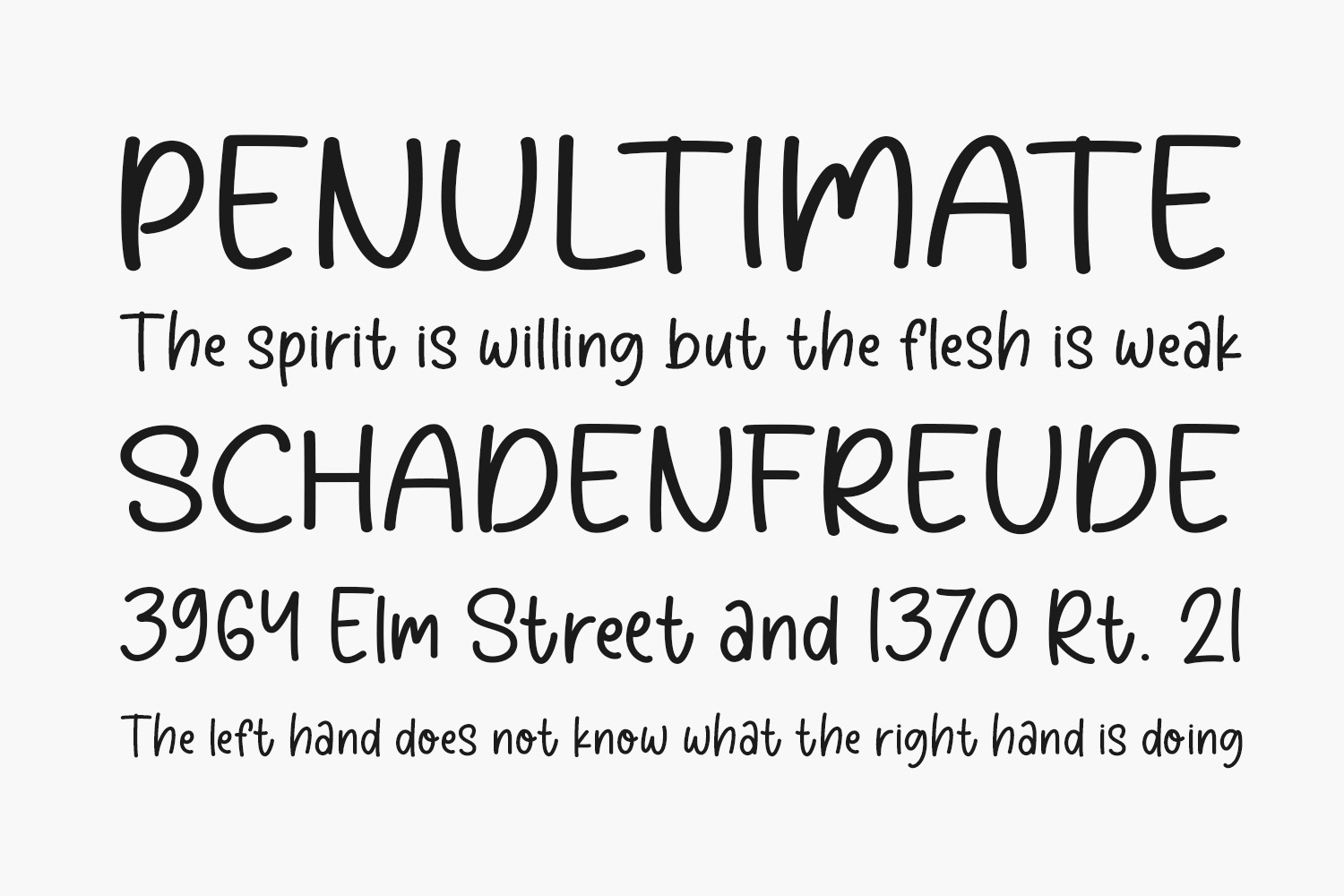
Strawberry Cheesecake Free Font is a cute and simple-lettered handwritten font that brings a playful and whimsical touch to any project. Its hand-drawn style and rounded letters give it a warm and inviting feel, perfect for creating designs that exude a fun and friendly vibe. Whether you’re designing a children’s book, a handmade craft, or a cute and quirky blog post, Strawberry Cheesecake is the perfect font for adding a touch of charm and personality.
Designed by Graphix Line Studio